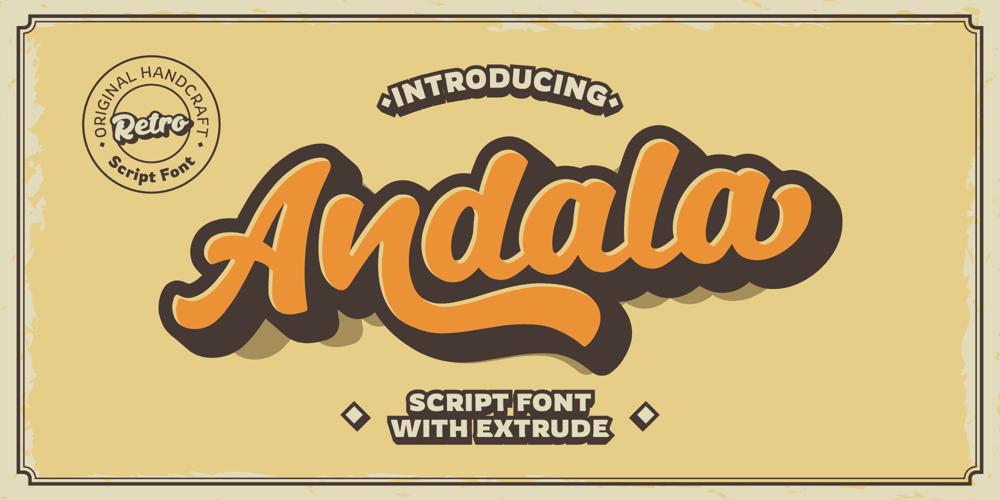
Andala Script Font Family was designed by Wahyu Dwi Cahyo and published by Auratype Studio. Andala Script contains 2 styles and family package options. Andala has inspirated from retro style and funky designs. This font comes with an extra extrude to make the font look more retro/unique and save your time on making it. Font has an opentype features that allow you to modify it as you like as needed. Andala perfect for poster, logo, book covers, tshirt designs, packaging and more.Features :UppercaseLowercaseNumberPunctuationLigatureMultilingual LanguagePUA encodeOpentype Features